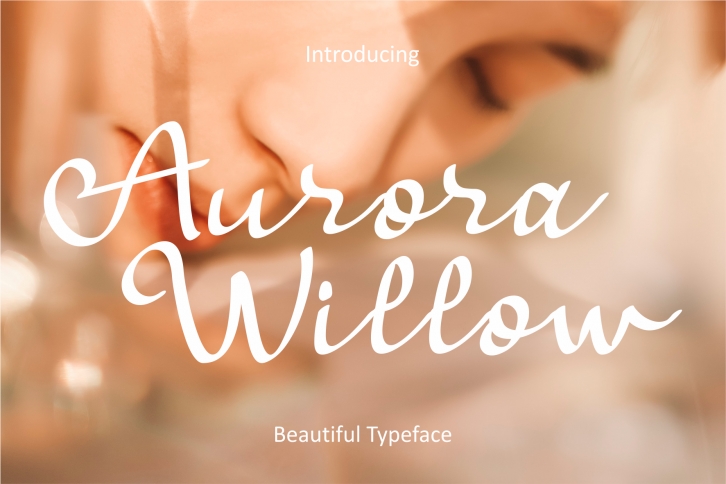
Aurora Willow is a delicate and chic lettered script font. Whatever the topic, this font will be a wonderful asset to your font library, as it has the potential to enhance any creation.